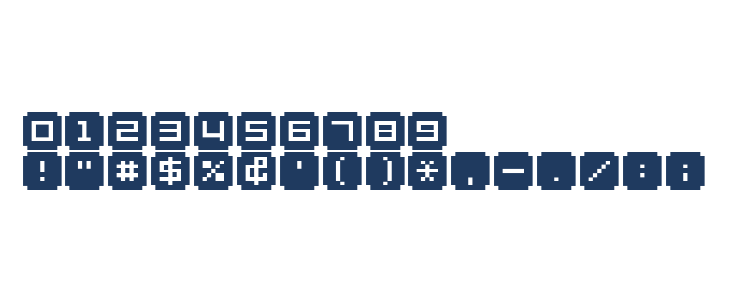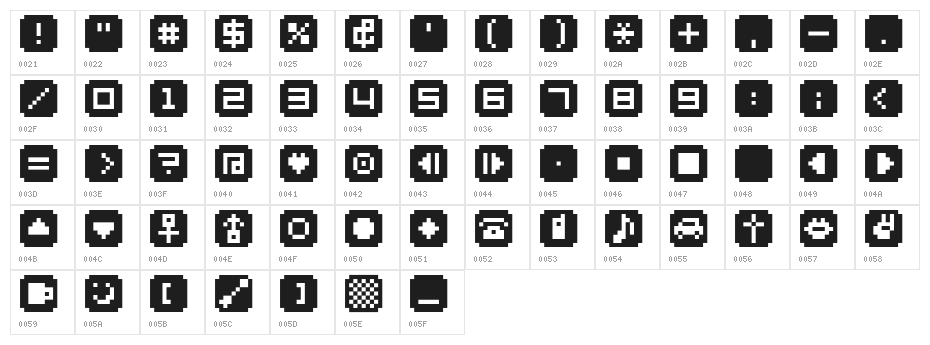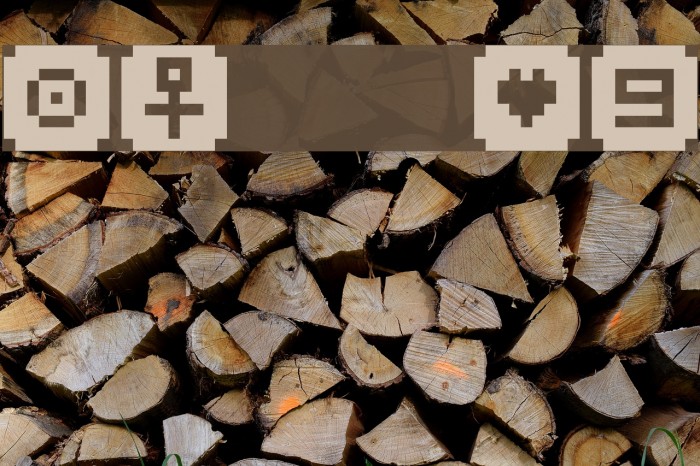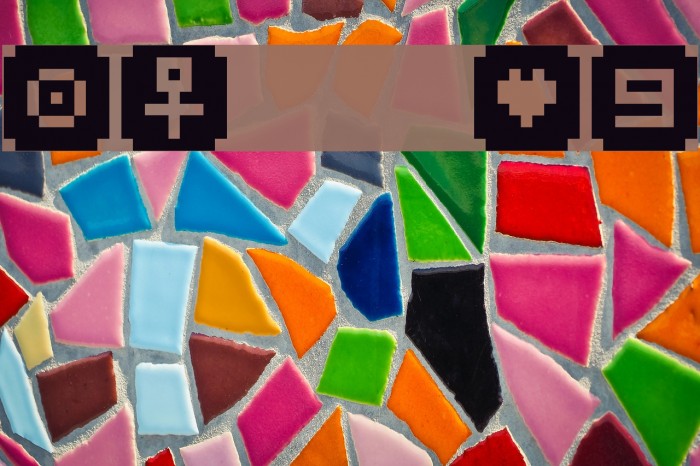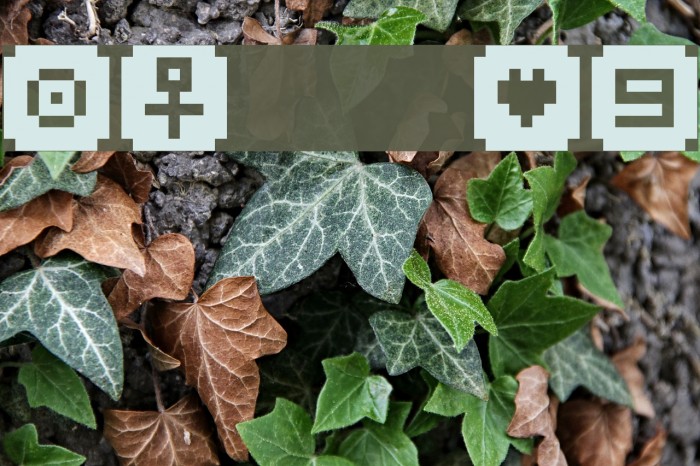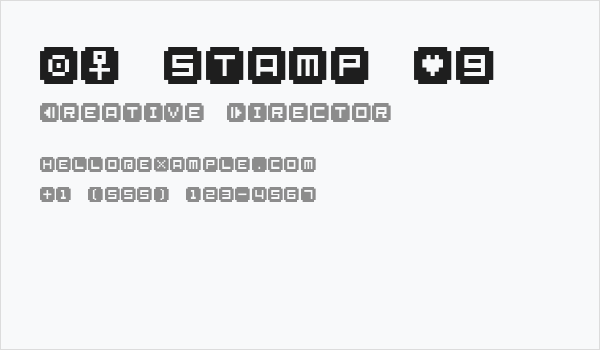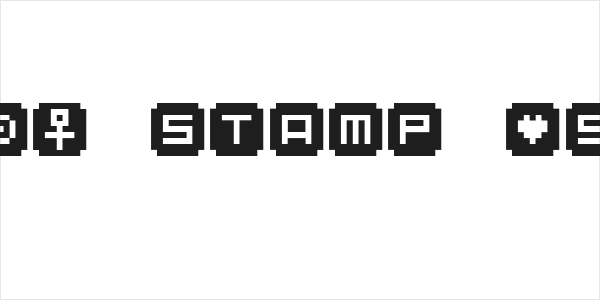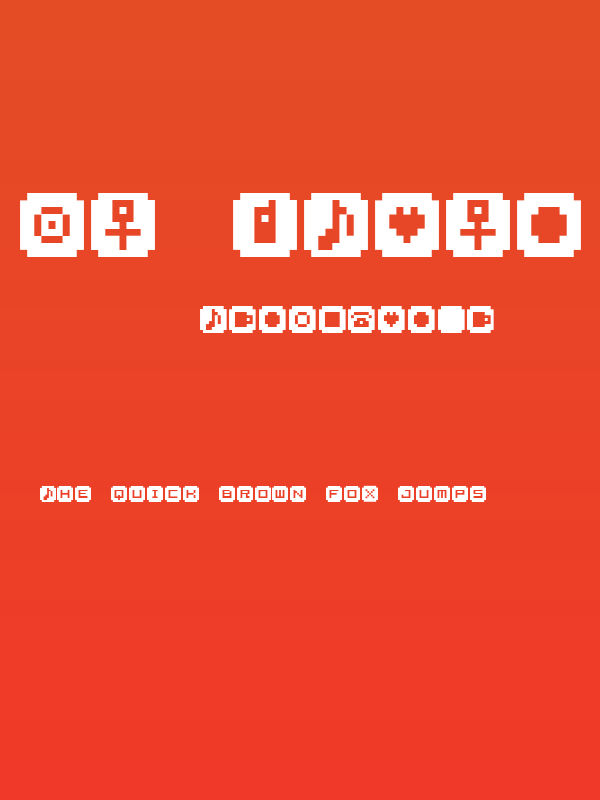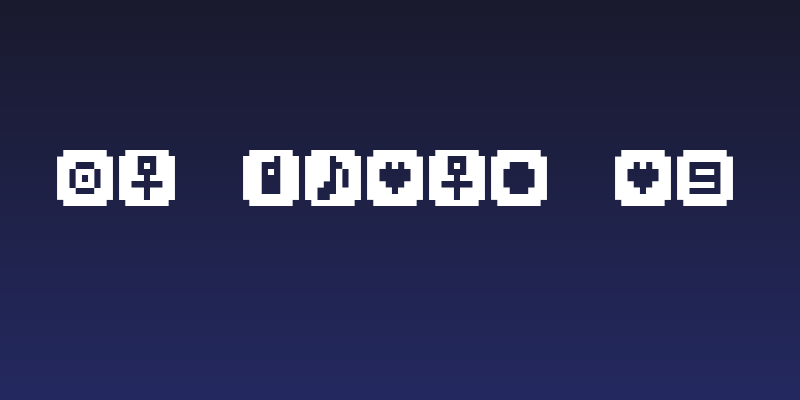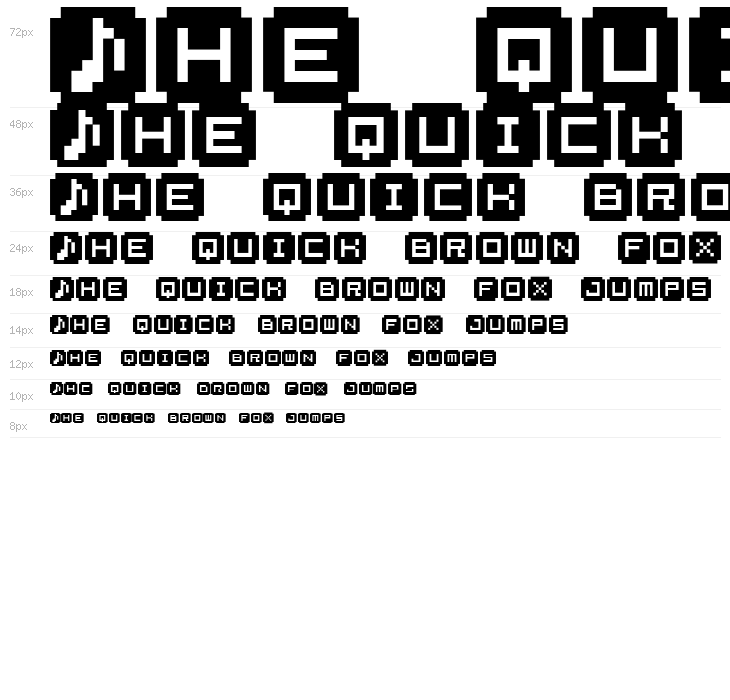
BM stamp A9 Font
BM stamp A9 Description
This font features a bold, pixelated style reminiscent of retro video games and digital displays. Each character is encased in a square, creating a uniform and structured appearance. The design is highly geometric, with sharp edges and a blocky aesthetic that emphasizes a digital or technological theme. The uppercase and lowercase letters are distinct, with the uppercase being more prominent. Numbers and special characters follow the same pixelated pattern, ensuring consistency across all elements. This font is ideal for projects that require a nostalgic or tech-inspired look.
| Overall Style | Retro, Digital |
| Proposed Projects | Ideal for video game design, tech-themed posters, digital art projects, and retro-style branding. |